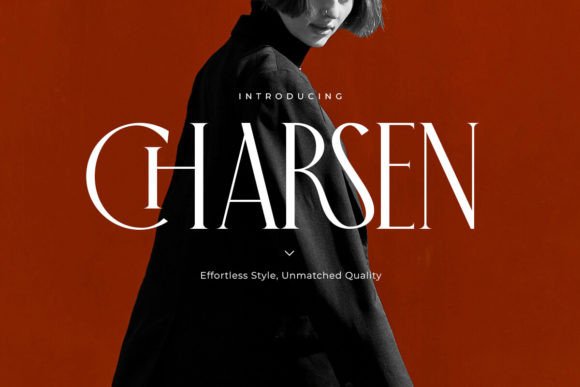
Introducing Charsen Font: Elevate Your Brand with Elegance and Sophistication
In the world of typography, a well-crafted font can make all the difference in creating a lasting impression. For designers and crafters seeking to elevate their brand’s visual identity, Charsen Font is an exceptional choice. This elegant and luxurious typeface is perfect for premium branding, offering a sophisticated blend of classic and modern styles that exude high-end appeal.
The Essence of Charsen Font
Charsen Font is designed to bring a touch of refinement and poise to various design projects. Its beautiful ligatures and refined details make it an ideal choice for logos, magazine covers, and marketing materials. The font’s classic roots are expertly blended with modern elements, ensuring versatility and a distinctive edge.
Key Features of Charsen Font
- Elegant Ligatures: Charsen Font boasts stunning ligatures that seamlessly connect letters, creating a fluid and sophisticated look.
- Refined Details: The font’s intricate details and subtle nuances add depth and character, making it perfect for high-end branding applications.
- Classic and Modern Blend: Charsen Font strikes a perfect balance between timeless elegance and modern flair, ensuring it can be used across a wide range of design projects.
- Versatility: Whether you’re designing a logo, magazine cover, or marketing material, Charsen Font adapts effortlessly to various design needs.
Applications of Charsen Font
Charsen Font’s versatility makes it suitable for a variety of applications, including:
- Logo Design: Create a lasting impression with a custom logo that exudes elegance and sophistication.
- Magazine Covers: Elevate your publication’s visual appeal with a stunning cover design that showcases Charsen Font’s refined beauty.
- Marketing Materials: Add a touch of luxury to your brochures, flyers, and other marketing materials, making them stand out from the competition.
Why Choose Charsen Font?
With an abundance of fonts available, Charsen Font stands out for several reasons:
- Unique Aesthetic: Charsen Font offers a distinctive and sophisticated look that sets it apart from more traditional typefaces.
- High-End Appeal: The font’s luxurious feel makes it perfect for brands seeking to convey exclusivity and premium quality.
- Design Versatility: Charsen Font can be used across various design projects, ensuring a consistent visual identity.
Tips for Using Charsen Font Effectively
To maximize the impact of Charsen Font, consider the following tips:
- Pair with Complementary Fonts: Combine Charsen Font with simpler fonts to create visual contrast and emphasize key design elements.
- Experiment with Ligatures: Take advantage of Charsen Font’s beautiful ligatures to add a touch of elegance to your design.
- Adjust Font Sizes: Play with font sizes to create visual hierarchy and emphasize key messages.
Charsen Font is an exceptional choice for designers and crafters seeking to elevate their brand’s visual identity. Its elegant and luxurious design, beautiful ligatures, and refined details make it perfect for premium branding applications. With its blend of classic and modern styles, Charsen Font offers versatility and high-end appeal, ensuring your design projects stand out with sophistication and poise.
Whether you’re creating a logo, magazine cover, or marketing material, Charsen Font is an excellent addition to your typography arsenal. Experience the elegance and luxury of Charsen Font and take your design projects to the next level.